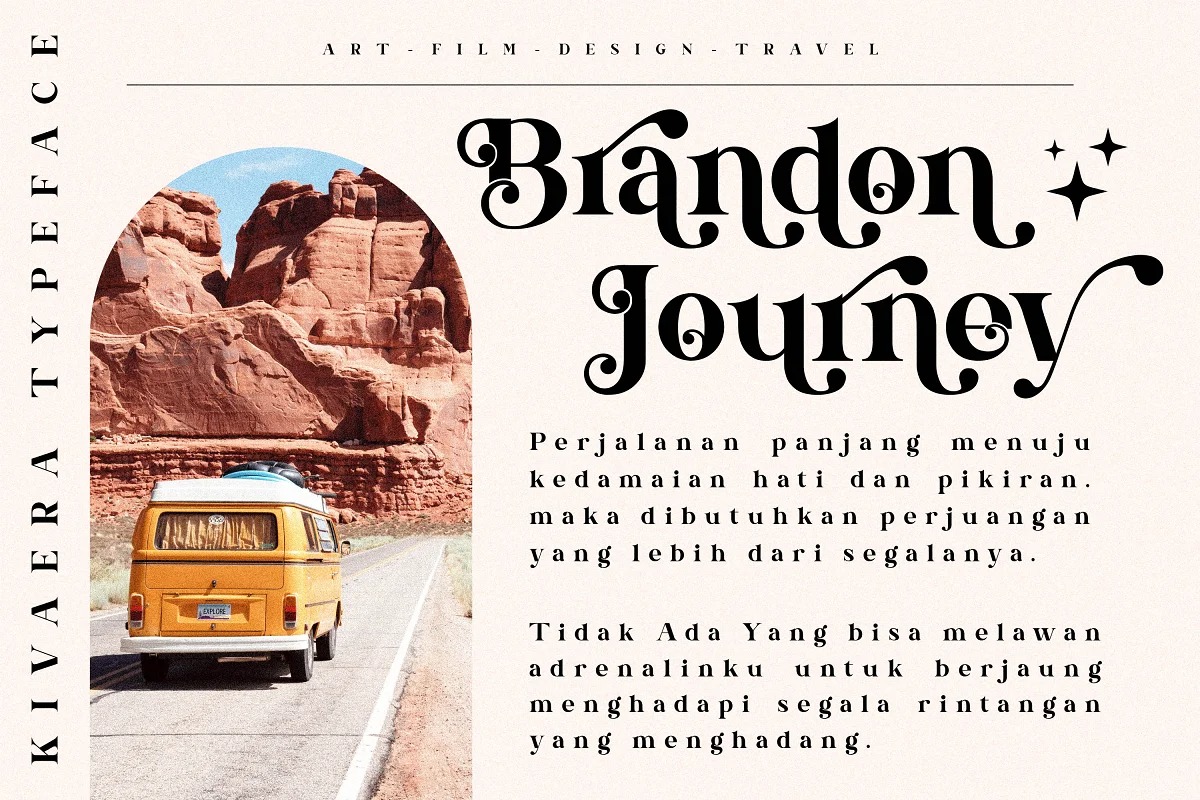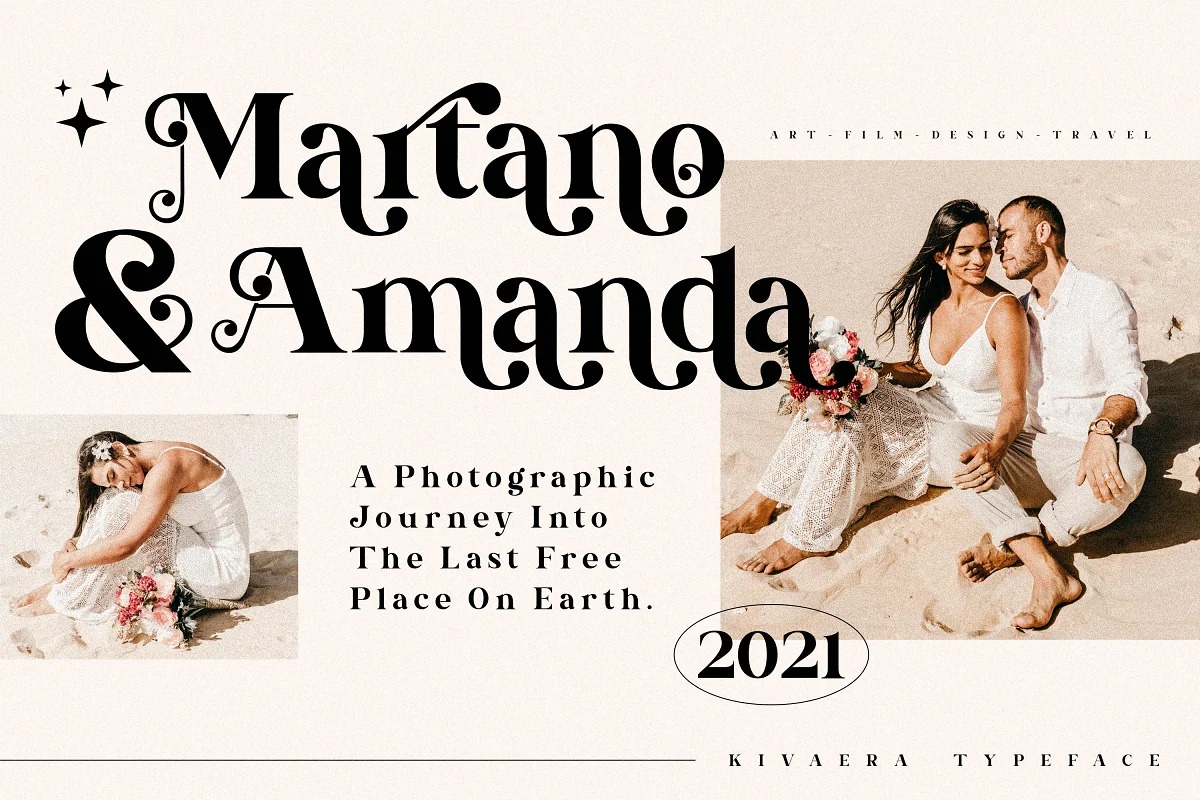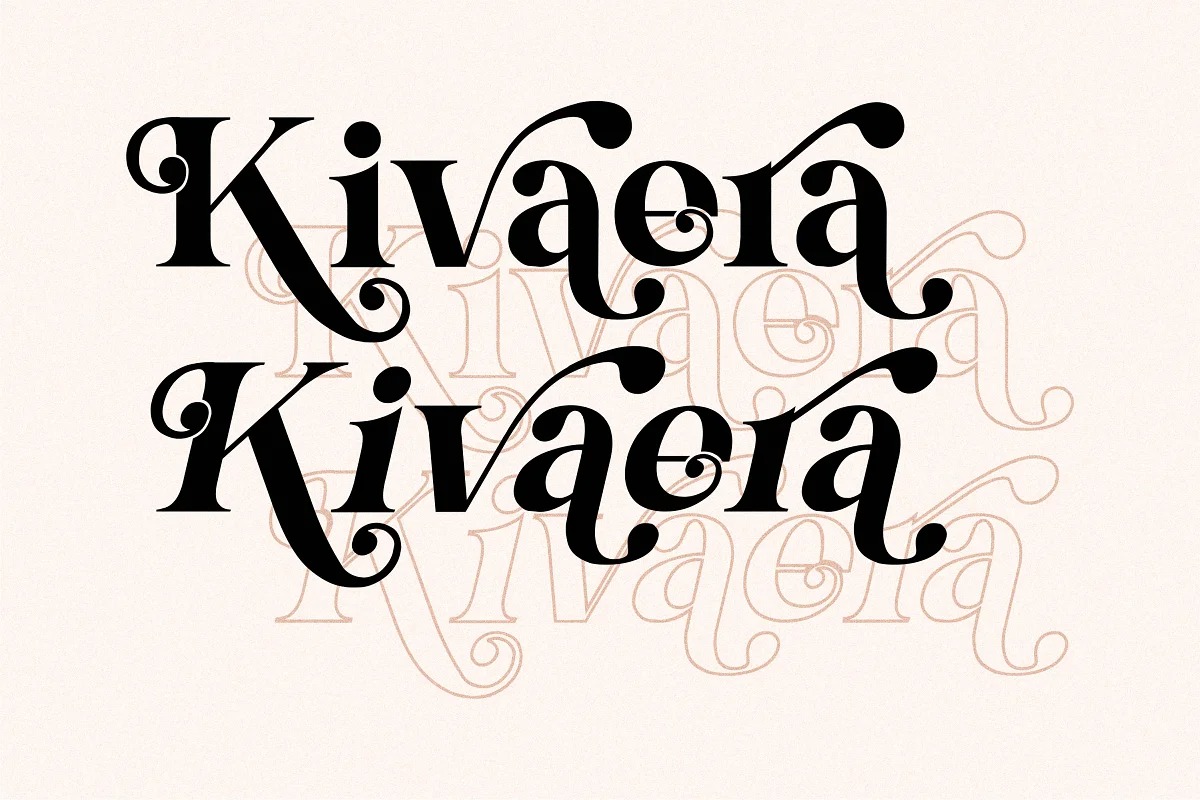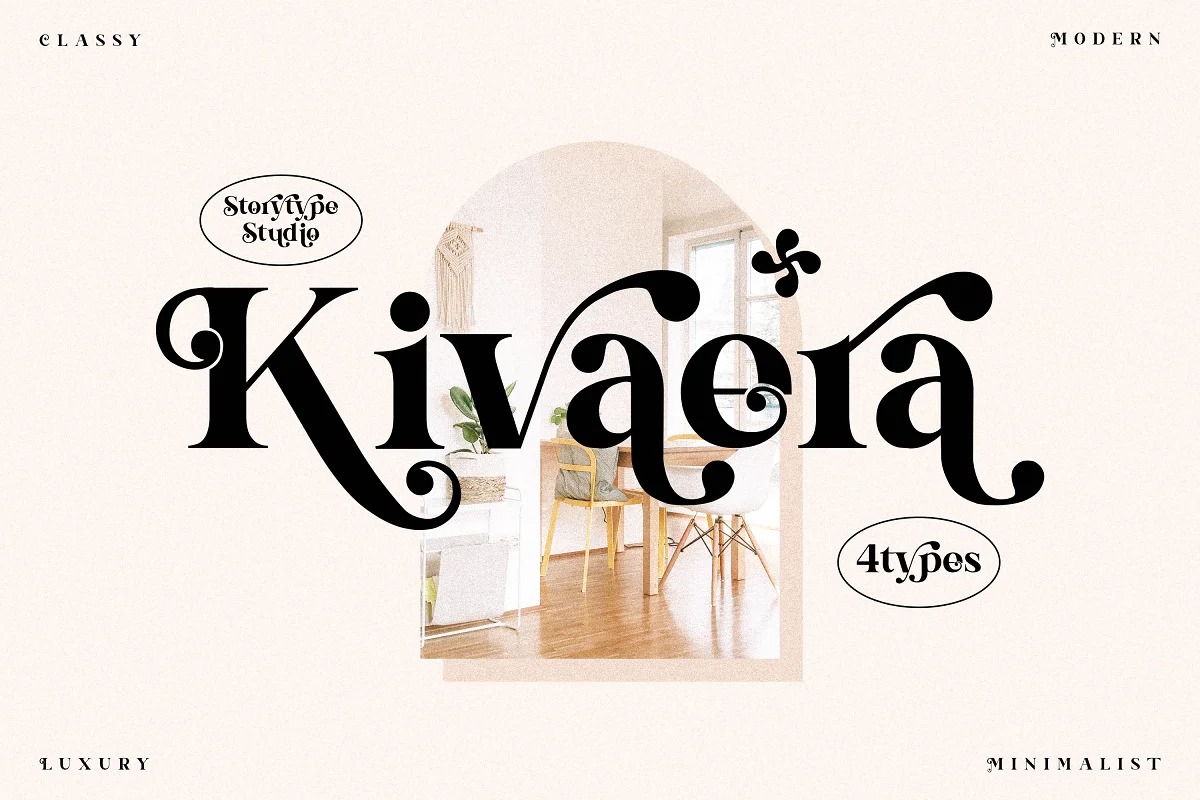
Kivaera Font
Kivaera Serif Font
This is incredibly elegant and beautifully rounded serif font package by Storytype Studio. Kivaera is perfect for an elegant & luxury logo, book or movie title design, fashion brand, magazine, clothes, lettering, quotes, and so much more.